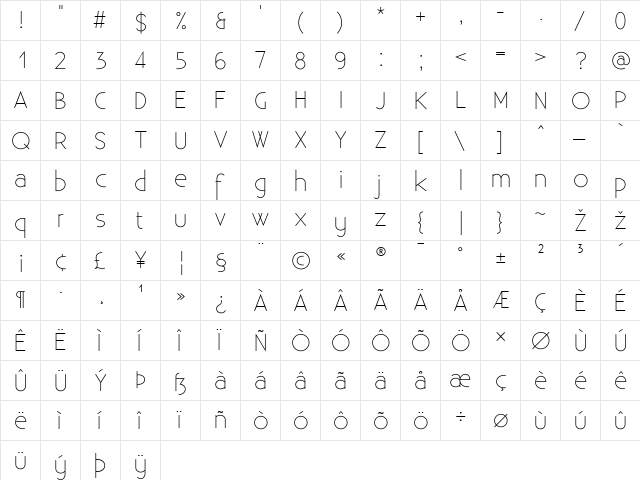
Existence Light Regular
Design Context for Existence Light Typeface
Existence Light is a composed and adaptable typeface that performs quietly and consistently across a wide range of design contexts. Its slender proportions lend an understated elegance to any composition.